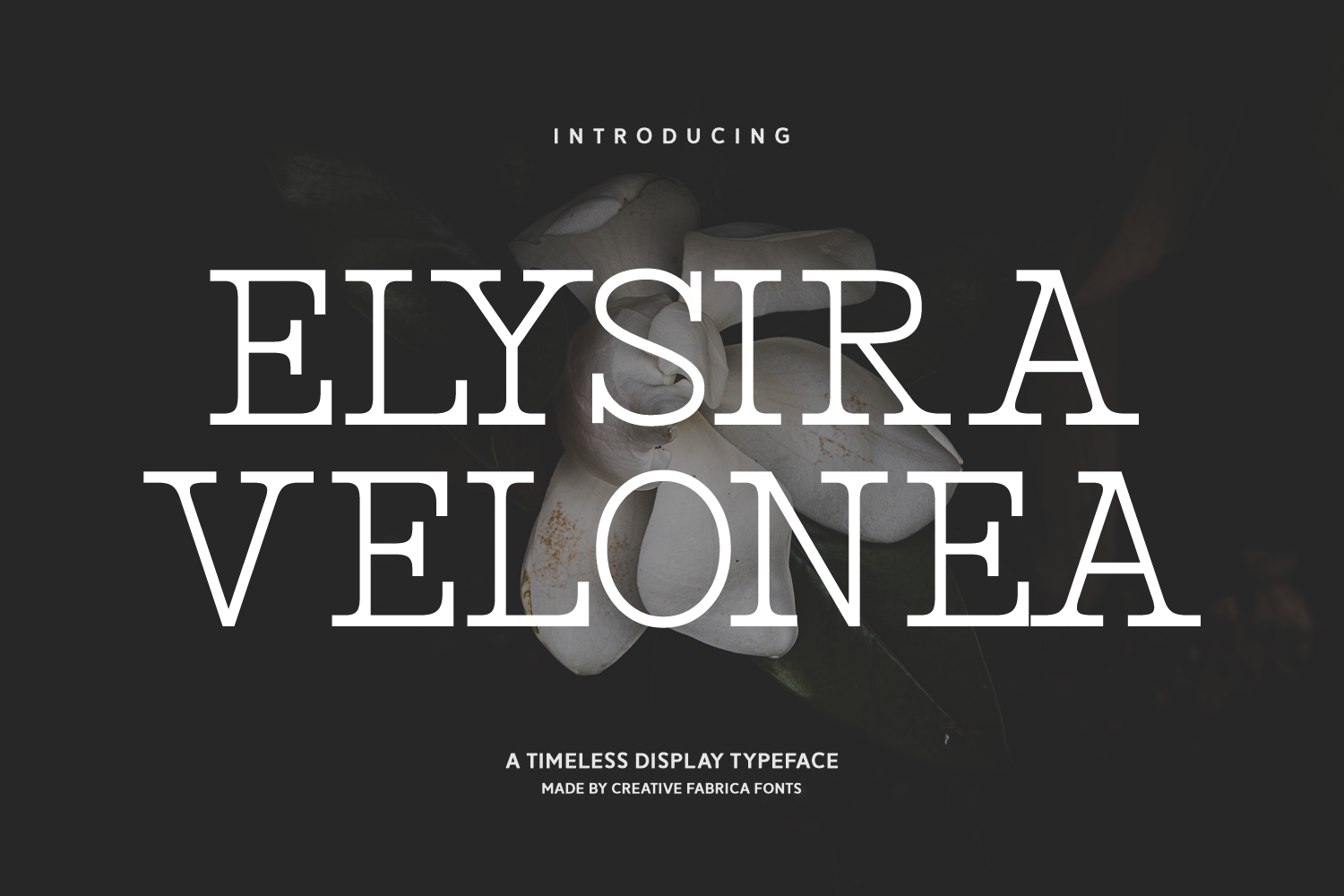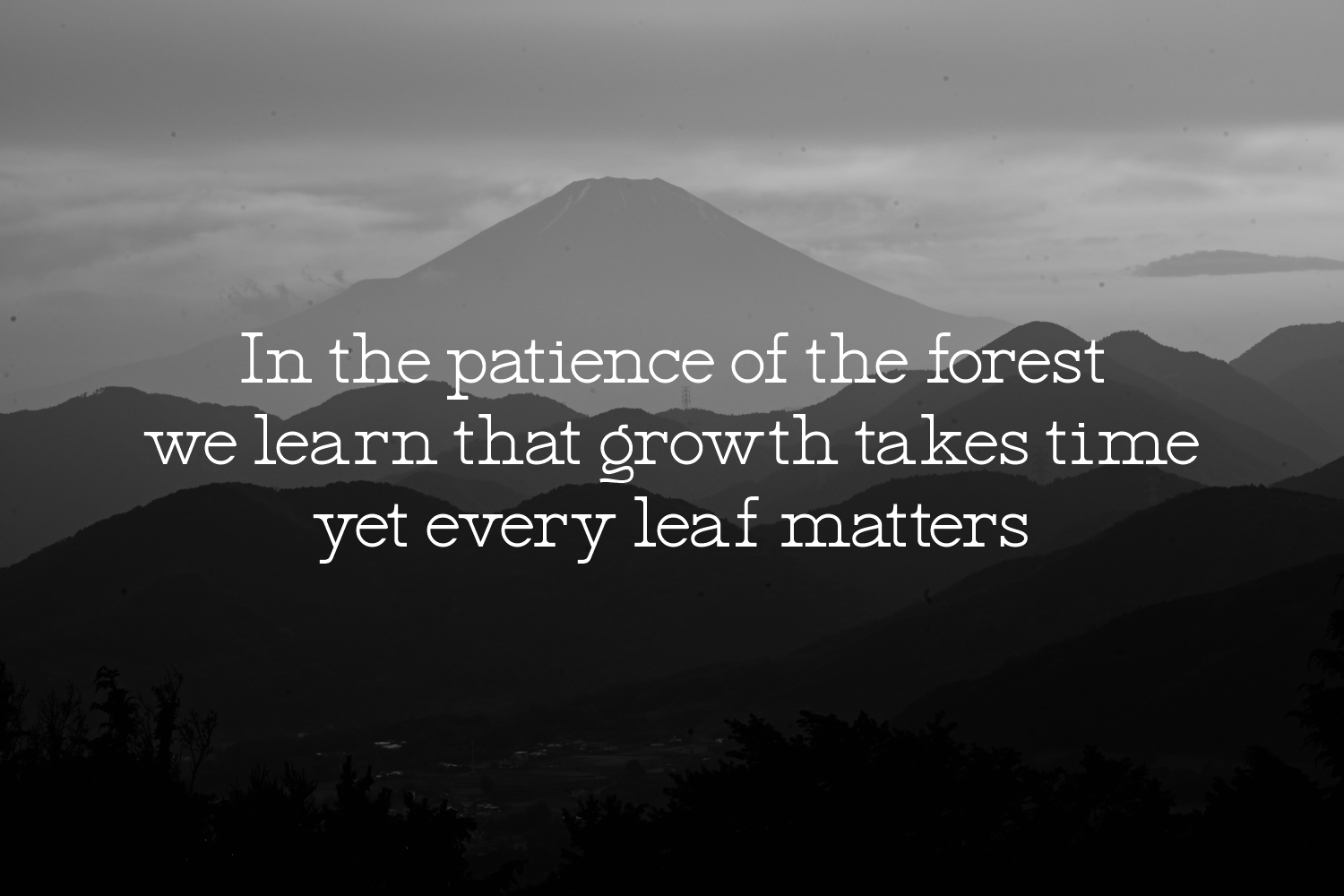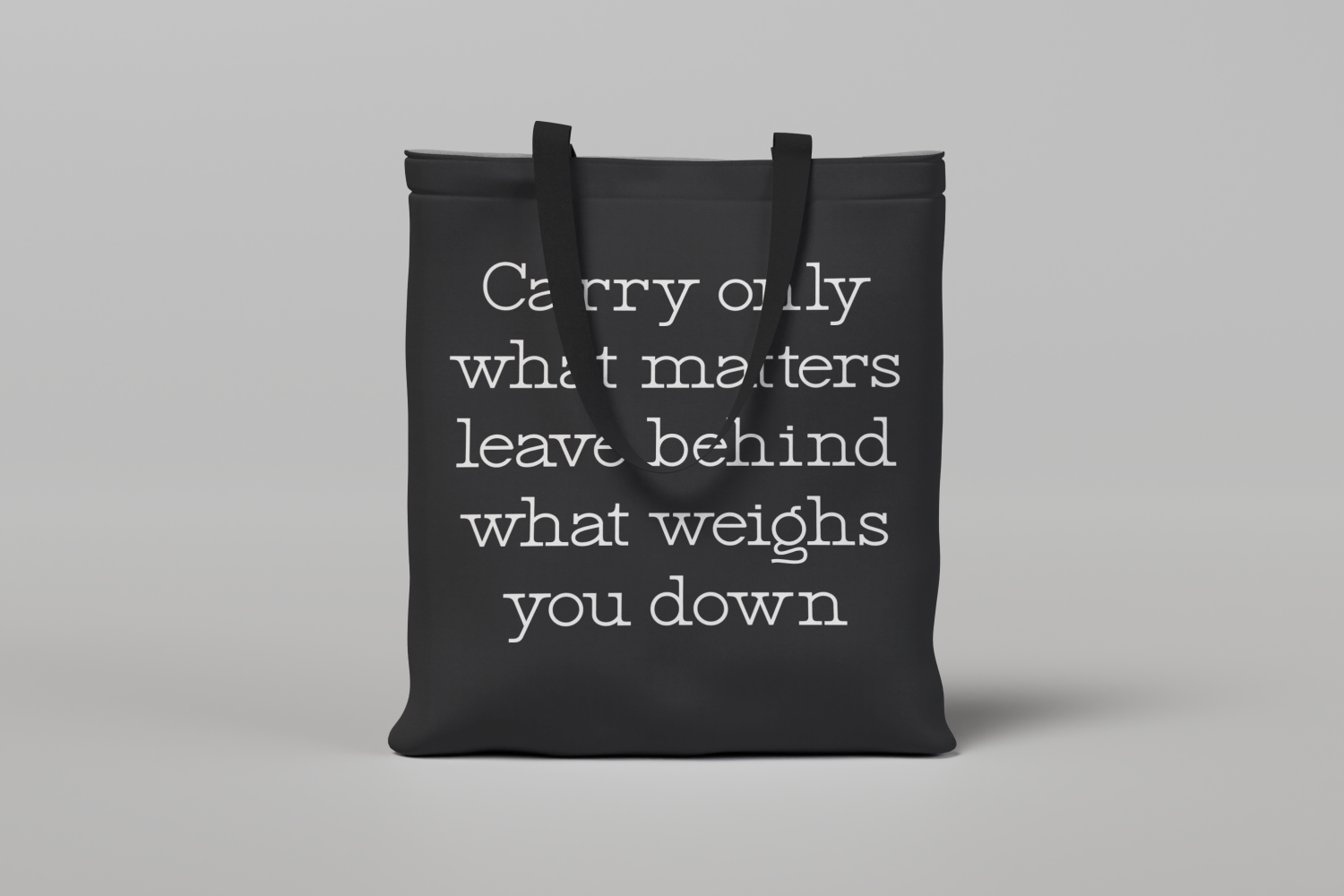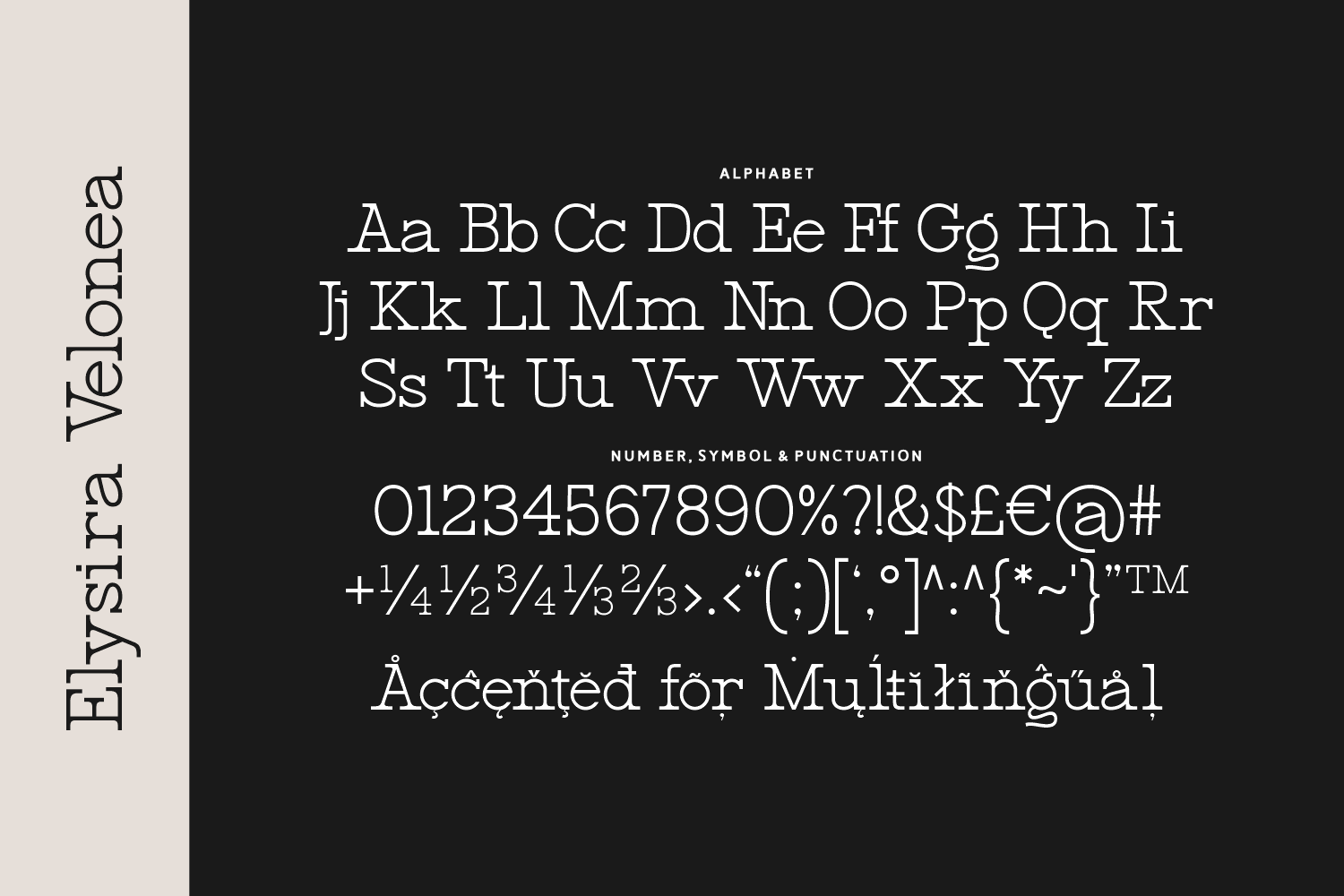
Elysira Velonea is a timeless display serif that blends classic elegance with strong, structured forms. With its clean lines, generous spacing, and vintage-inspired charm, this font is ideal for editorials, book covers, upscale branding, and historical-themed designs.
It brings a sense of sophistication and authority while remaining highly readable and versatile. A refined serif for storytelling, publishing, and premium branding.